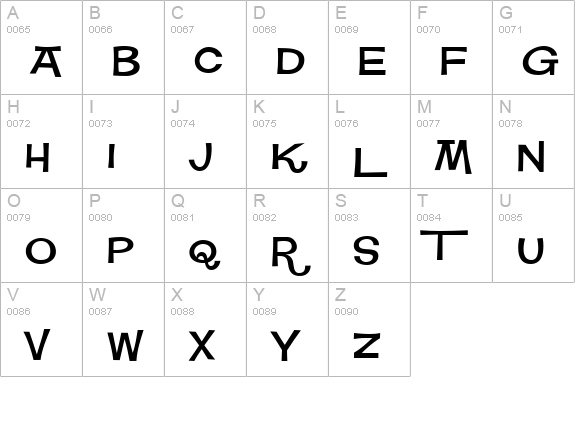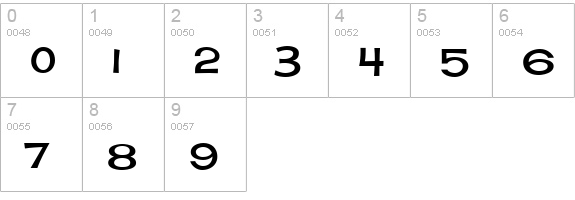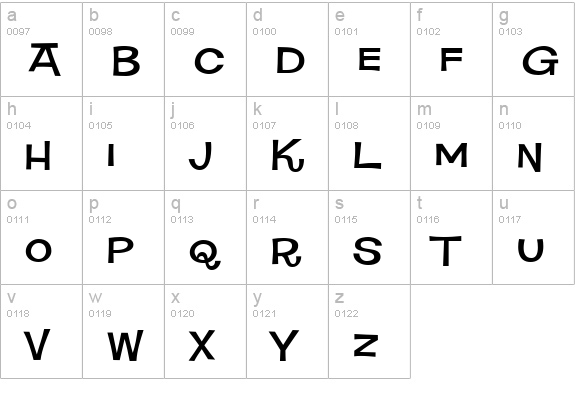
Square Meal font is a beautifully crafted typeface that effortlessly combines elegance with a touch of modernity. Its clean and crisp lines make it perfect for a wide range of design projects, from branding and logos to invitations and headlines. With its versatile nature, Square Meal font can easily adapt to various design styles and themes, giving your creations a unique and polished look. Whether you're working on a sleek and sophisticated corporate design or a playful and fun project, this font has got you covered. One of the standout features of Square Meal font is its accessibility. It is freely available to download at FontsMarket.com, making it easily accessible to designers and creatives around the world. This means that you can add this exceptional font to your collection without breaking the bank. The attention to detail in Square Meal font is truly remarkable. Each character is meticulously crafted, ensuring that every letter and symbol is visually pleasing and harmoniously balanced. The result is a font that exudes professionalism, while still maintaining a sense of creativity and originality. Whether you're a seasoned designer or just starting out, Square Meal font is a must-have in your toolkit. Its versatility, accessibility, and exceptional design make it a font that will elevate your projects to new heights. So go ahead, download Square Meal font from FontsMarket.com and unleash your creativity today.